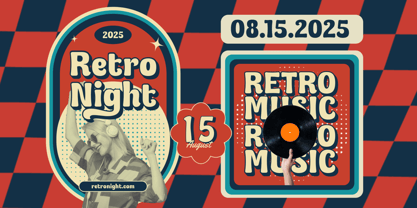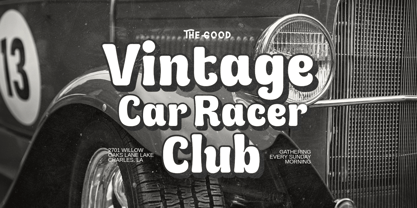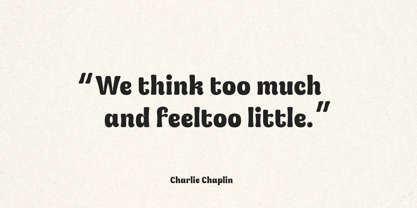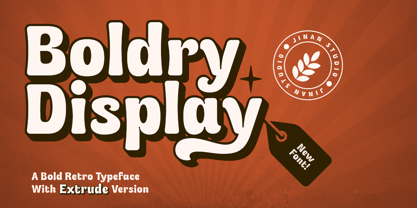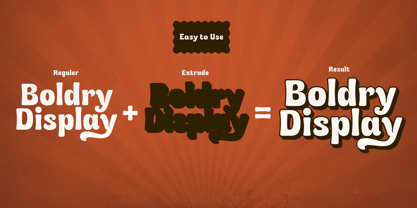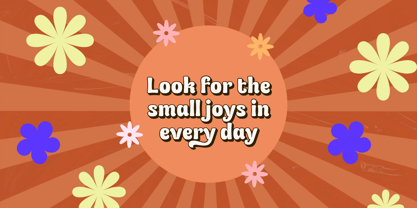
Boldry Display
by Jinan Studio
The Boldry Display Font Family was designed by Andi Syahdang, Ainun Jinan and published by Jinan Studio. Boldry Display contains 2 styles and family package options.
Boldry Display is a bold retro typeface that captures the fun, charm, and energy of vintage design. With thick, rounded letterforms and a playful personality, this font is perfect for projects that aim to feel both nostalgic and timeless. Ideal for logos, posters, packaging, headlines, and branding, Boldry Display stands out with its striking presence and includes an extrude version for added depth and style. Whether you're creating a retro-inspired design or want to inject some bold character into your visuals, Boldry Display brings a vibrant and authentic touch to any creative project.
Features
• A set of uppercase and lowercase glyphs
• Number, symbol, and punctuation
• Multilingual Support
• Alternates & Ligatures
• Extrude Version